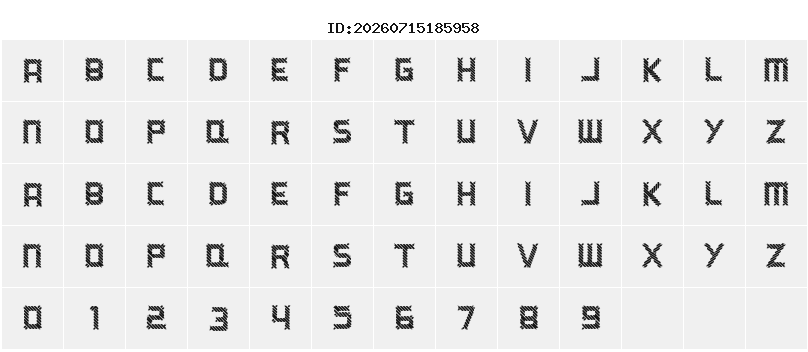
a ripping yarn Preview
• Font Name: a ripping yarn
• Full Font Name: a ripping yarn
• Version: Version 1.00 September 9, 2011, initial release
About a ripping yarn.ttf
a ripping yarn.ttf is a modern, elegant sans-serif font designed for ultimate readability and visual harmony. Perfect for branding, headlines, web design, and print materials.